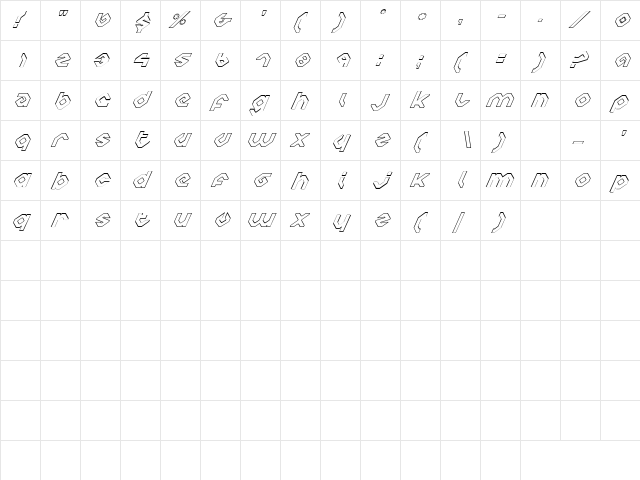
Charlie's Angles Italic Outline Font Preview
Design Context for Charlie's Angles Italic Outline Typeface
Charlie's Angles Italic Outline brings ornamental detail and strong personality to headlines and identities, where visual impact matters more than quiet functionality. The dynamic lean of this cut emphasises speed and emphasis in any layout.
Font Pairing: Pair with a clean neutral sans-serif for body copy to let Charlie's Angles Italic Outline's character lead without overwhelming the composition.
Pro Tip: Treat Charlie's Angles Italic Outline as the centrepiece of your typographic hierarchy. One strong heading set in a decorative face can carry an entire layout.